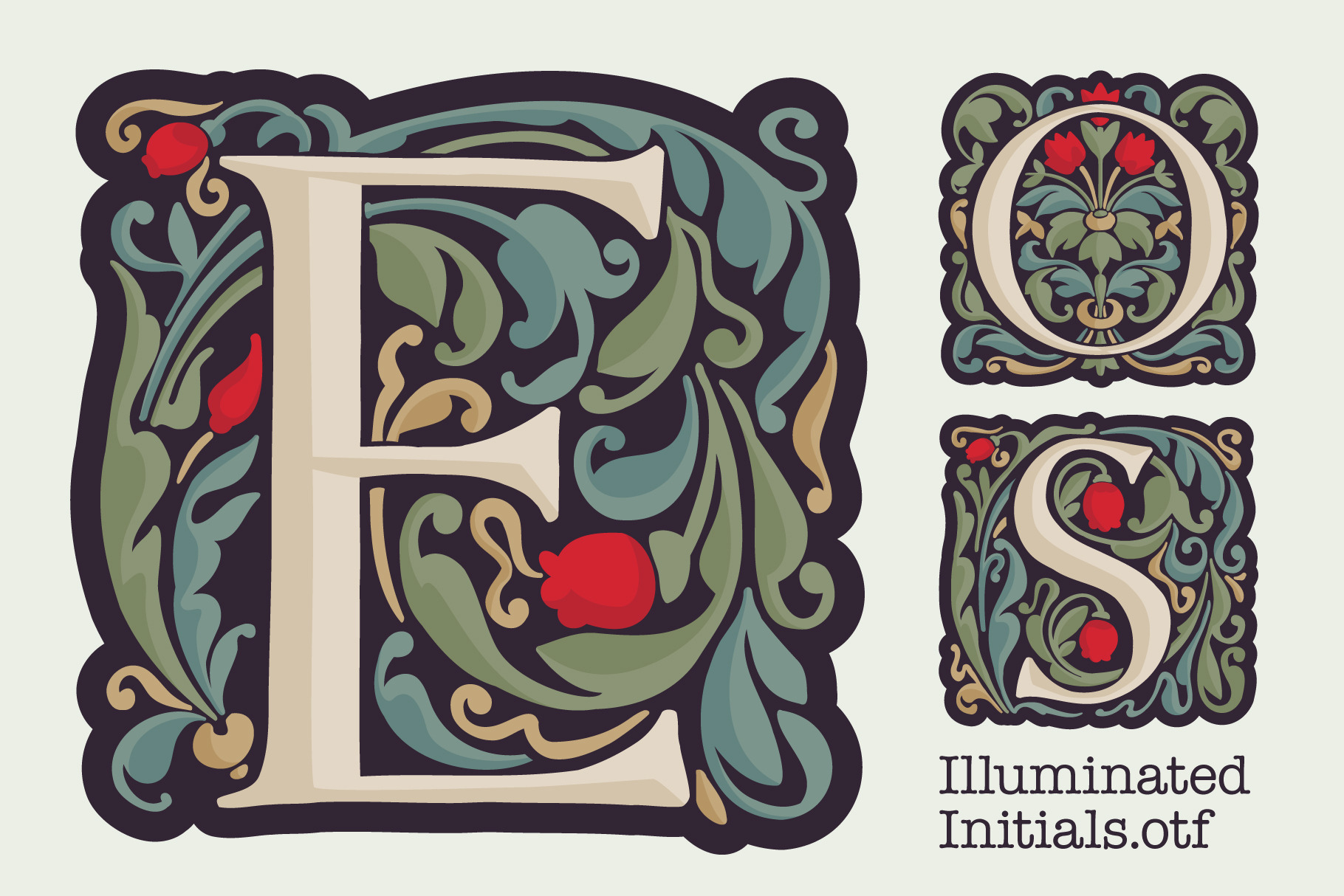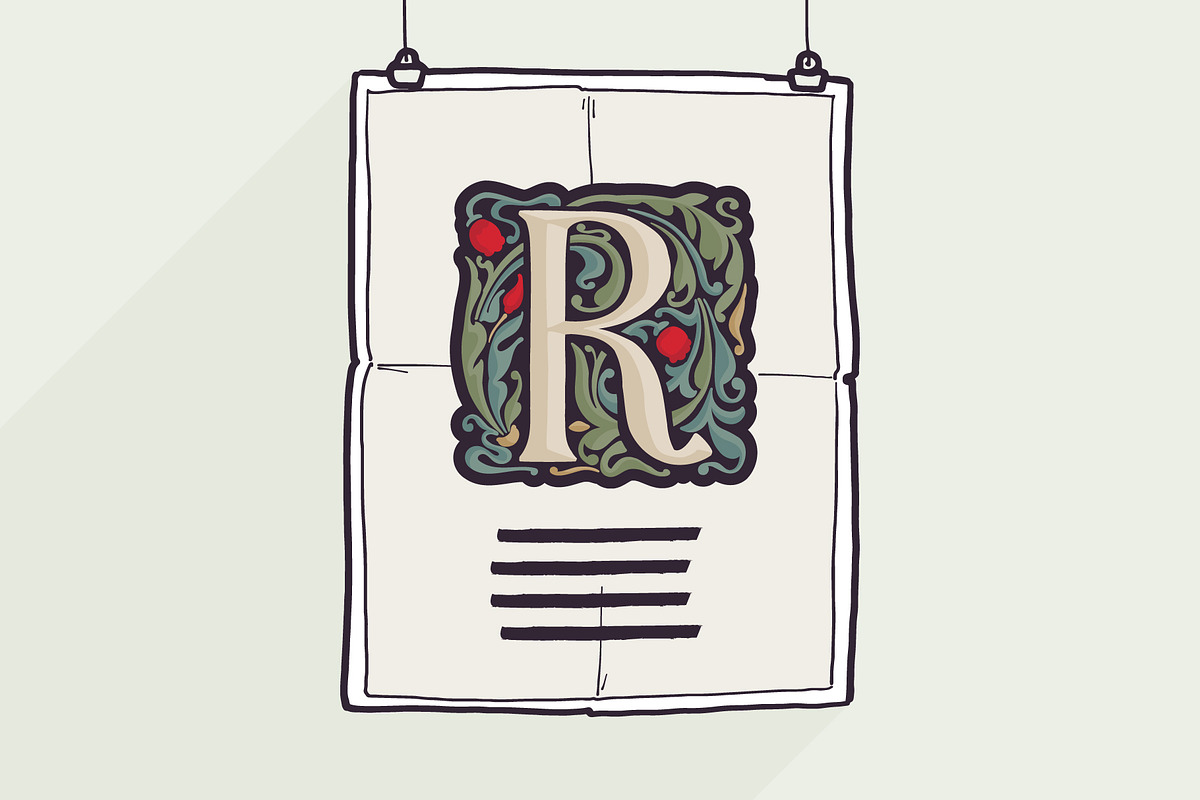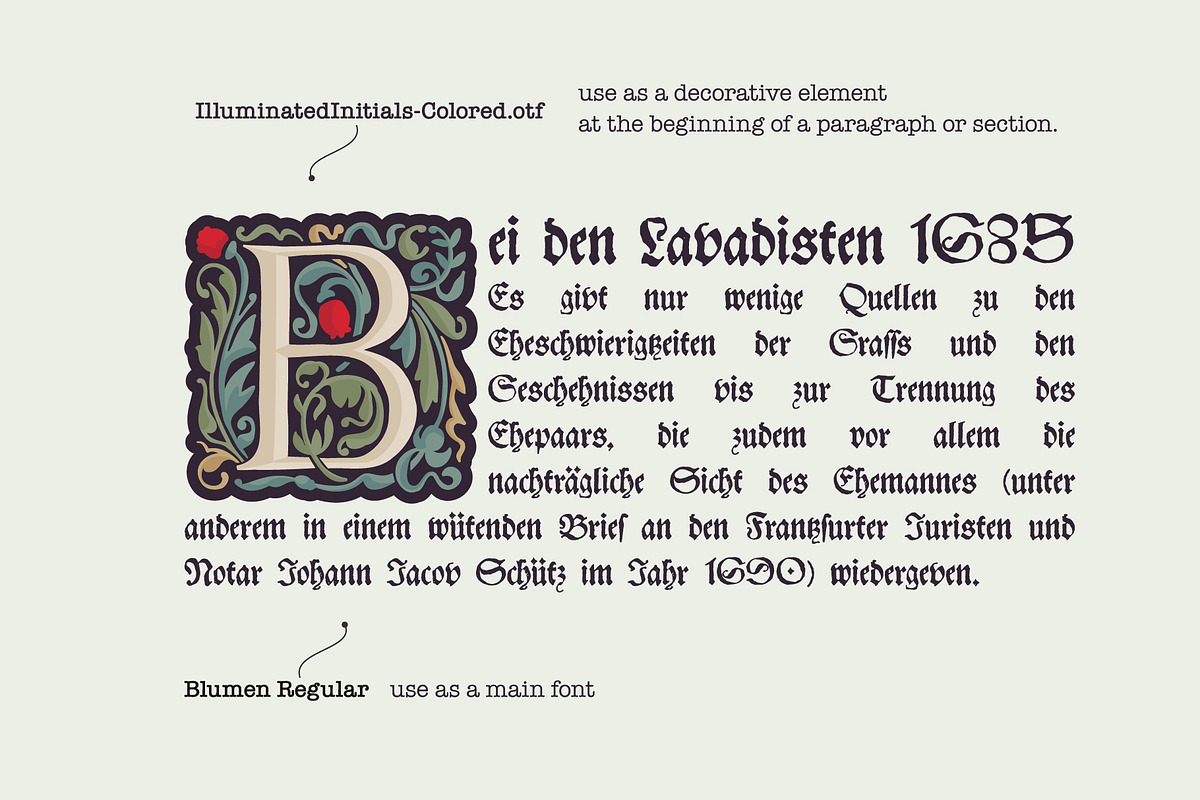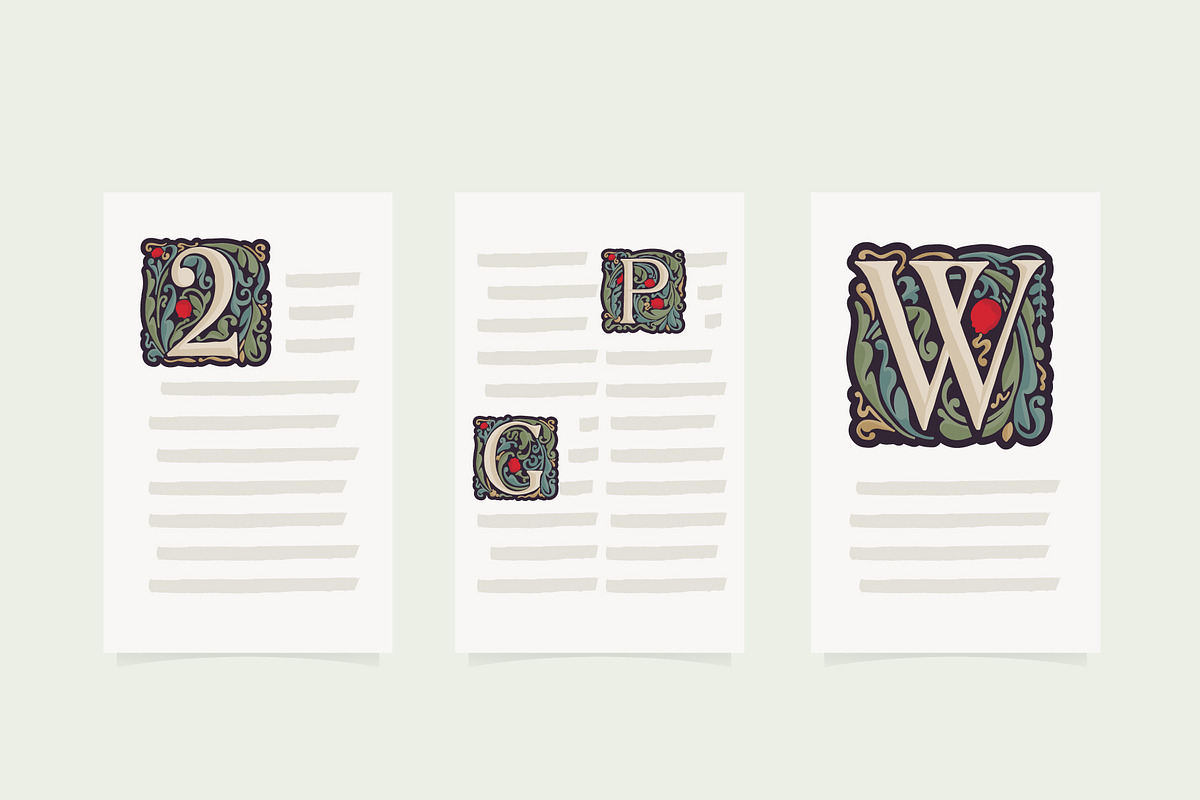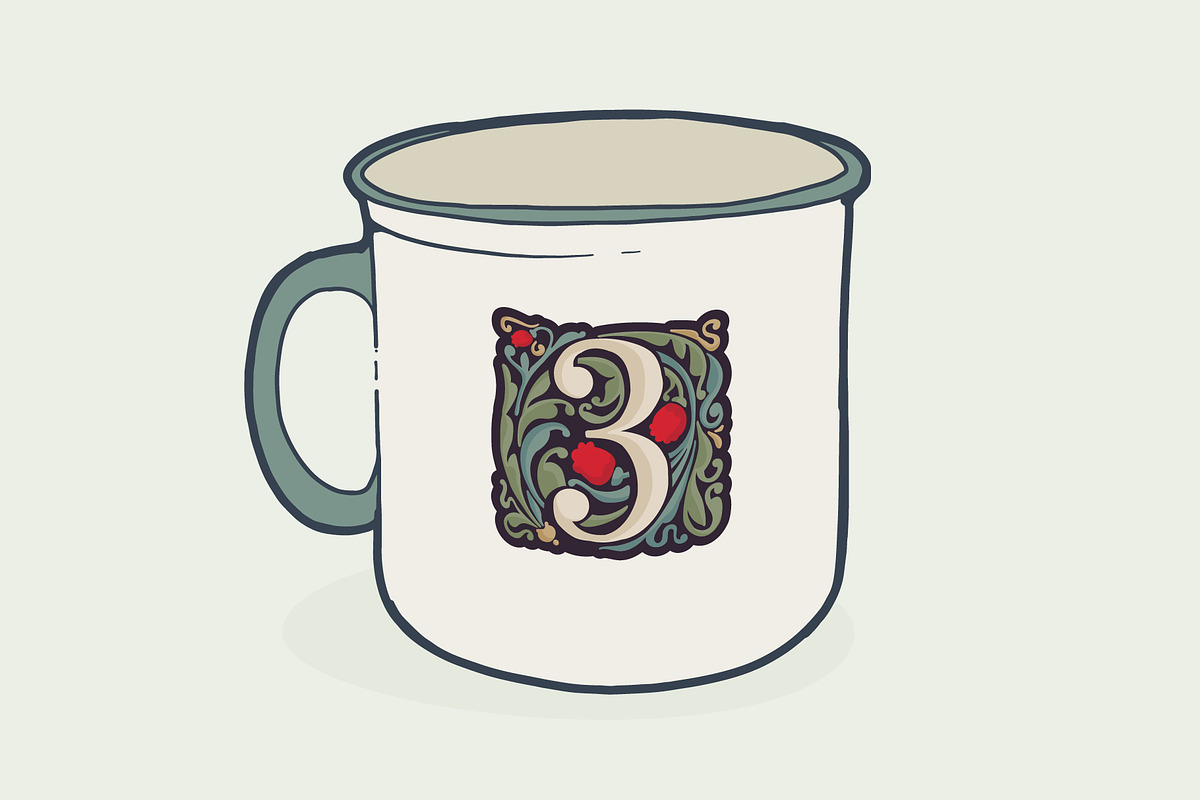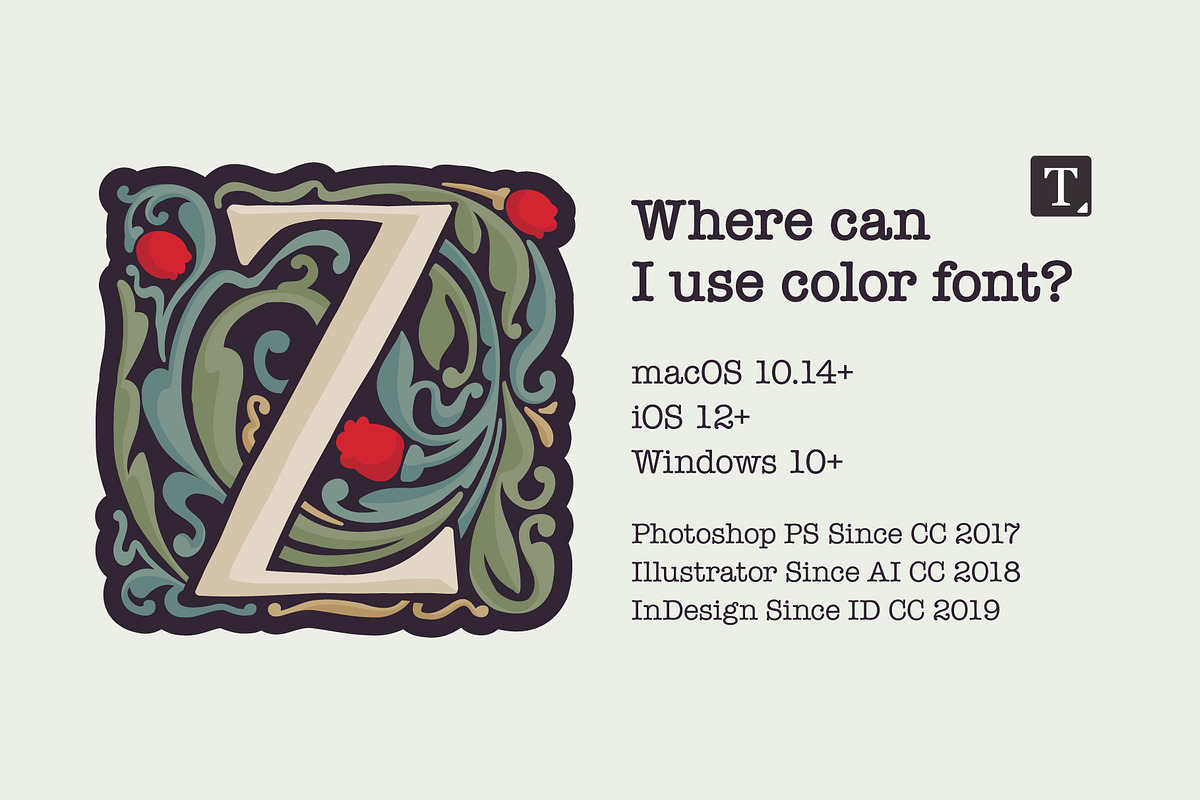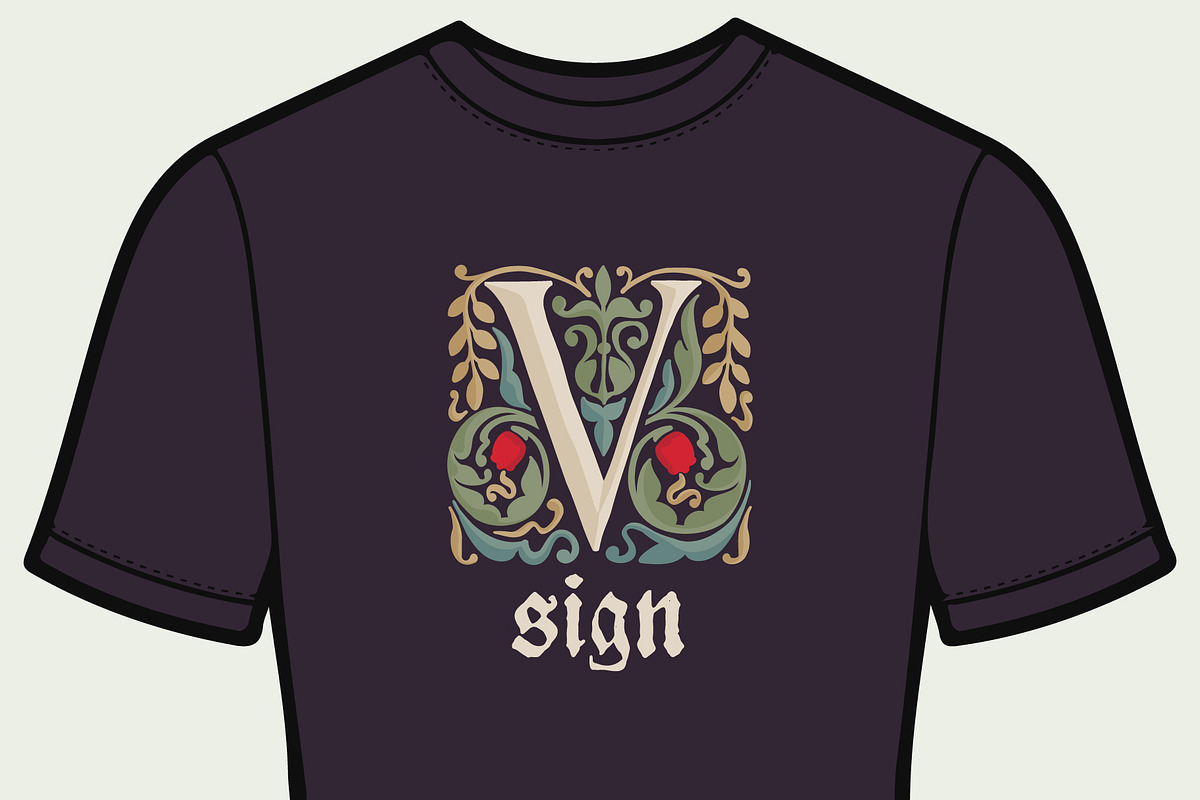
Illuminated Initials font family
Illuminated Initials font family has Regular and Colored styles and inspired by medieval initials. It's all you need to precisely imitate dark-ages style text. Use this font as a decorative element at the beginning of a paragraph or section, other part of the paragraph should be in regular black letter font.
You’ll get Drop Caps & Numbers set.